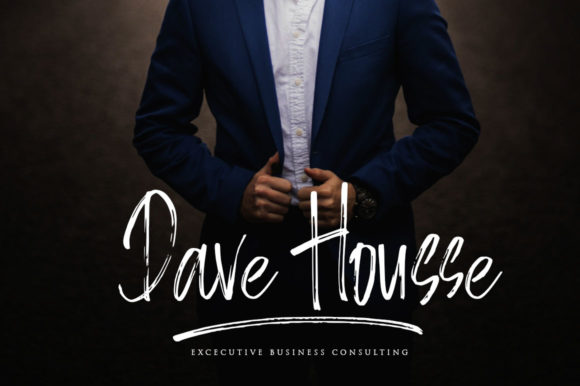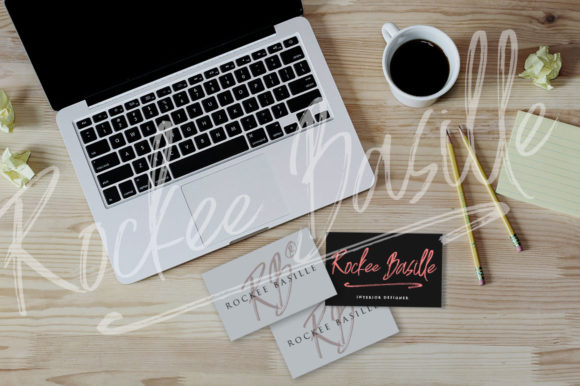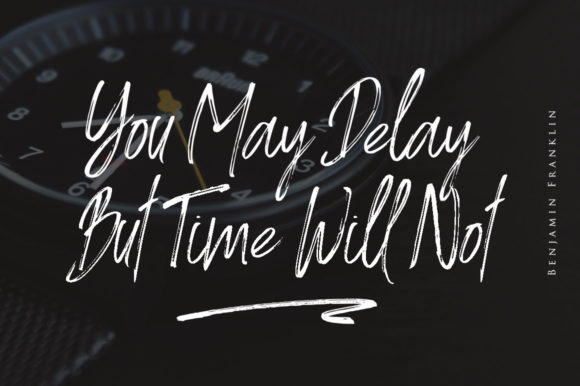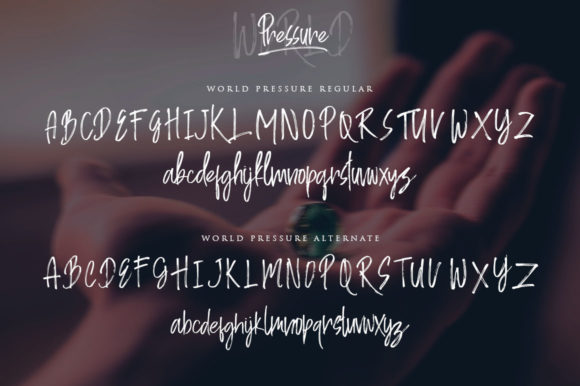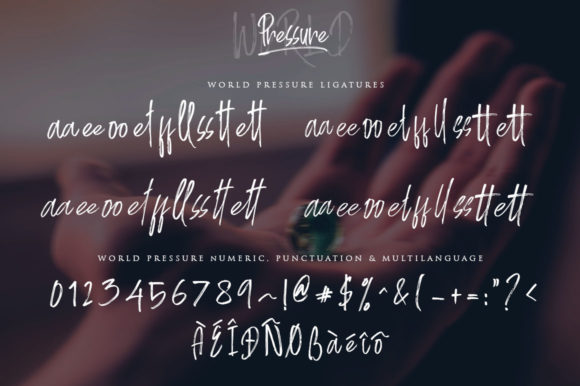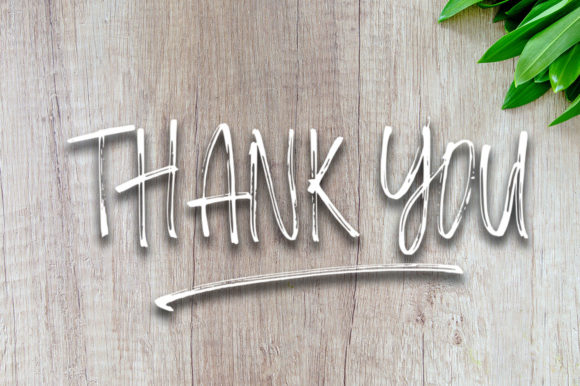
HomeScript FontsWorld Pressure Font Script Fonts World Pressure Font FacebookXPinterestWhatsApp World Pressure Font Poster 2 World Pressure Font Poster 3 World Pressure Font Poster 4 World Pressure Font Poster 5 World Pressure Font Poster 6 World Pressure Font Poster 7 World Pressure Font Poster 8 About World Pressure Font IWorld Pressure is a stunning handwritten font with a beautiful feel. Get inspired by its organic charm. DOWNLOAD ON CREATIVE FABRICAThis font is sold and delivered by Creative Fabrica. Font Canyon may earn a commission if you buy through this link. People also explored Alqamar Ramadan Monogram Font Swordfish Font Ketty Font Beautiful Gwyneth Font Authentica Font Monstone Font Chocolate Font Season Fall Font Evelina Font 374 0 TagsWorld Pressure Font Previous articleVakansy FontNext articleBehind the Scenery Font LEAVE A REPLY Cancel reply Comment: Please enter your comment! Name:* Please enter your name here Email:* You have entered an incorrect email address! Please enter your email address here Website: Save my name, email, and website in this browser for the next time I comment. Personal Use Free The Relapse Personal Use Free Read more about this font Whitelight Personal Use Free Read more about this font Shelly Personal Use Free Read more about this font Hollow Personal Use Free Read more about this font BLOG Elegant Wedding Invitation Fonts – Handwritten & Script Fonts Elegant Wedding Invitation Fonts Your wedding day is one of the most important moments of your life, and every detail matters—including your invitation design. Our... Free vs Paid Fonts: Why Investing in Premium Fonts Is Worth It The 10 Best Handwriting Fonts to Add Personality to Your Designs 5 Fonts That Will Dominate Design Trends in 2026